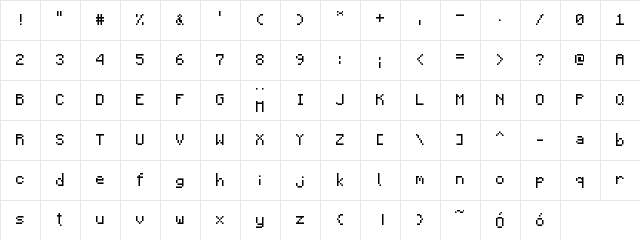
Minecraft PL Font Regular
| Designer | Alirgion |
Design Context for Minecraft PL Font Typeface
Minecraft PL Font is a composed and adaptable typeface that performs quietly and consistently across a wide range of design contexts.